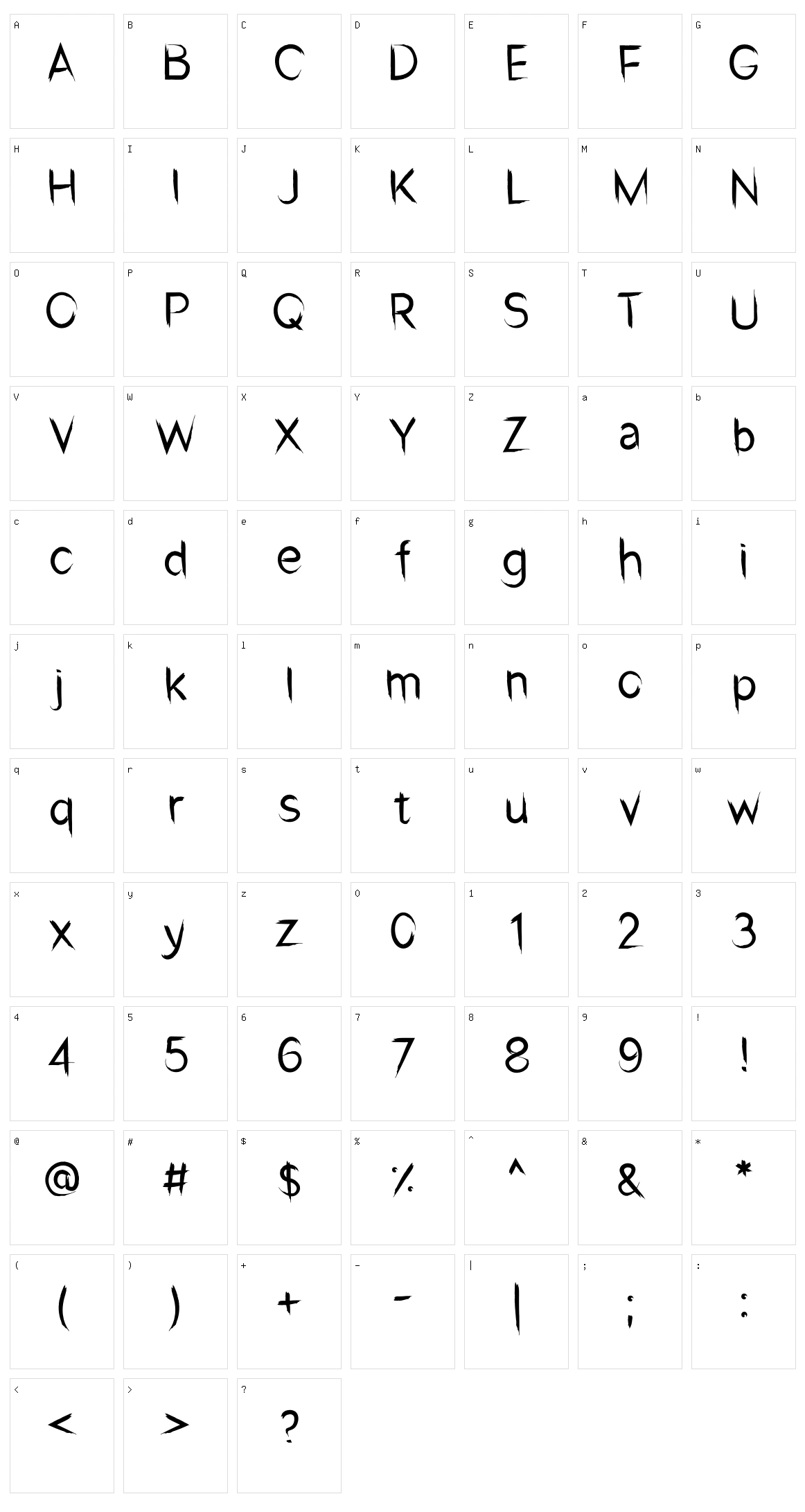
The free font Sxuidz is carefully designed by Klakon Studio, showcasing a thoughtful balance of creativity and usability and falls under the Horror font style. When you download the ZIP file, it contains only 236.06 KB of font files, making it lightweight and quick to download. Please review the license details below to understand permitted usage and distribution rights. If license information is not available, we recommend using this font for personal projects only or contacting the author directly for commercial usage permissions.